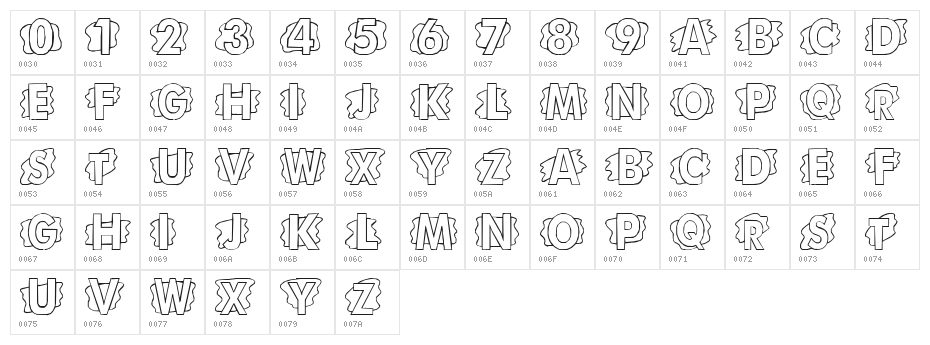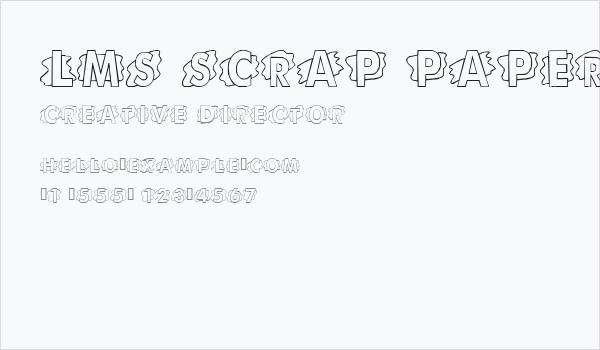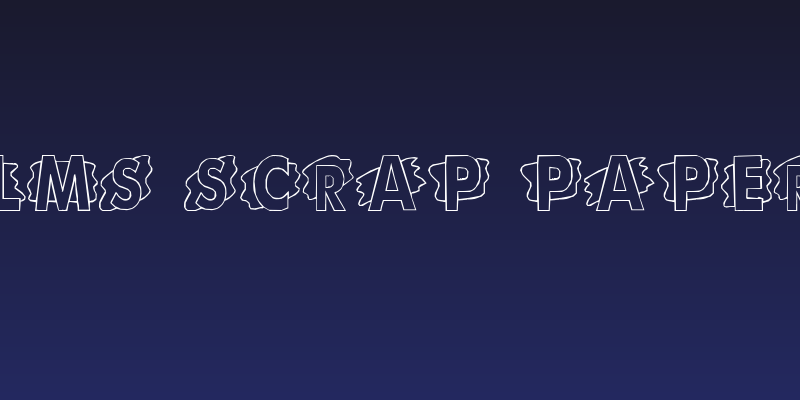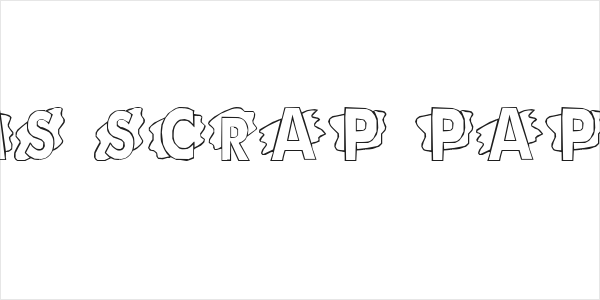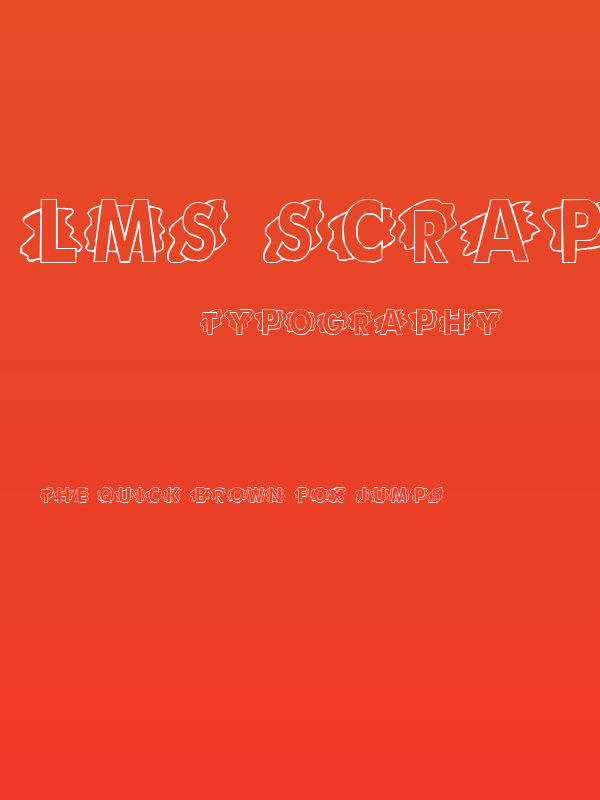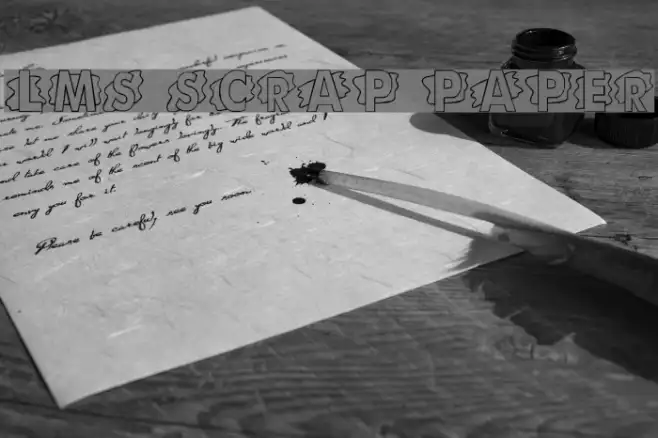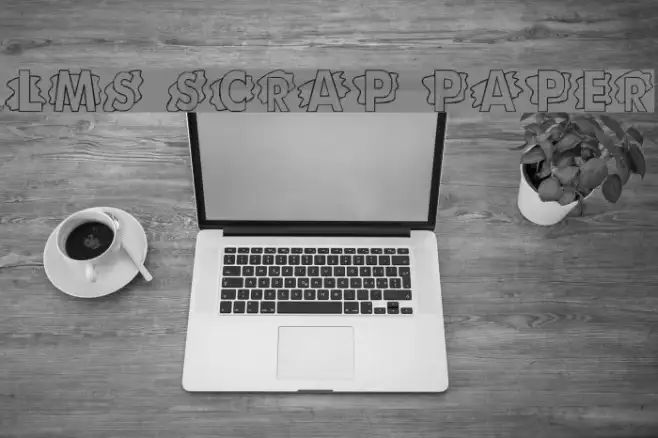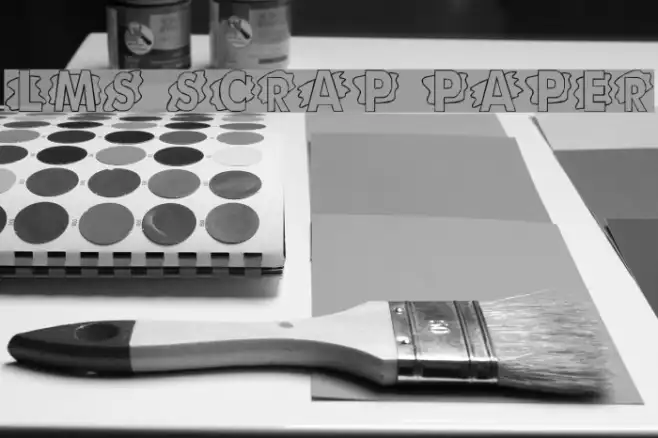
LMS Scrap Paper Font
LMS Scrap Paper Description
This font features a playful and decorative style, characterized by bold, blocky letters with a unique outline effect that resembles cut-out paper shapes. Each character is outlined with a jagged, irregular edge, giving it a hand-crafted, scrapbook-like appearance. The uppercase and lowercase letters maintain a consistent design, with the numerals and special characters following the same aesthetic. The font's whimsical and artistic nature makes it stand out, perfect for projects that require a touch of creativity and fun.
| Proposed Projects | Ideal for scrapbooking, children's book covers, playful posters, and creative invitations. |